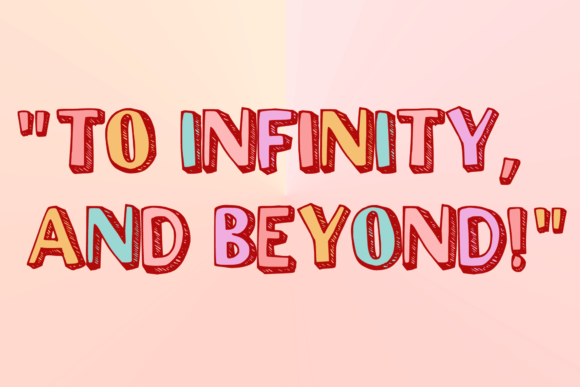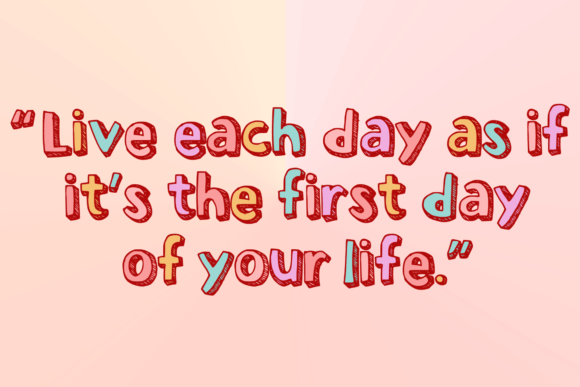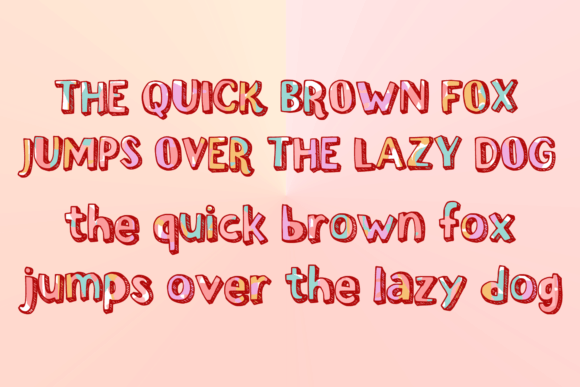
Vintage 3d Cartoon Font
Vintage 3D Cartoon is a fun 3D-look handwritten display font. You can use it for anything ranging from t-shirts, kids’ book designs, greeting cards, stickers, and posters, or anything that needs a casual touch. Fall in love with its incredibly versatile style and use it to create lovely designs!